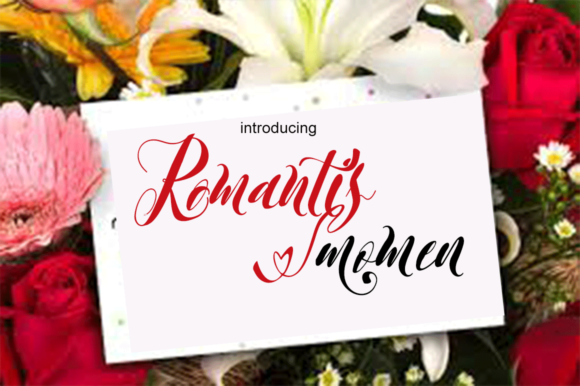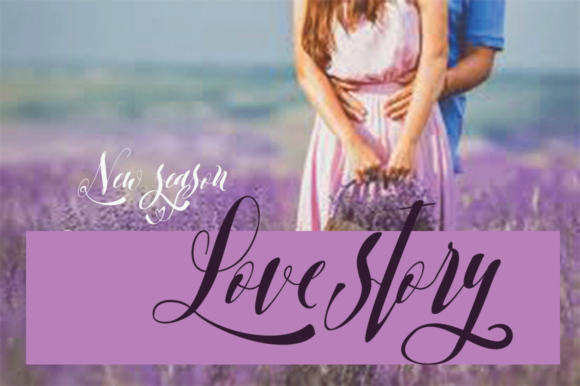
Romantis Momen Script Font
Romantis Momen is a modern calligraphy font with classical influences. The Romantis font is packed with extra features and bonusses.
Designer Name: | Muhammad Akbar |
Classification: | Calligraphy, Script |